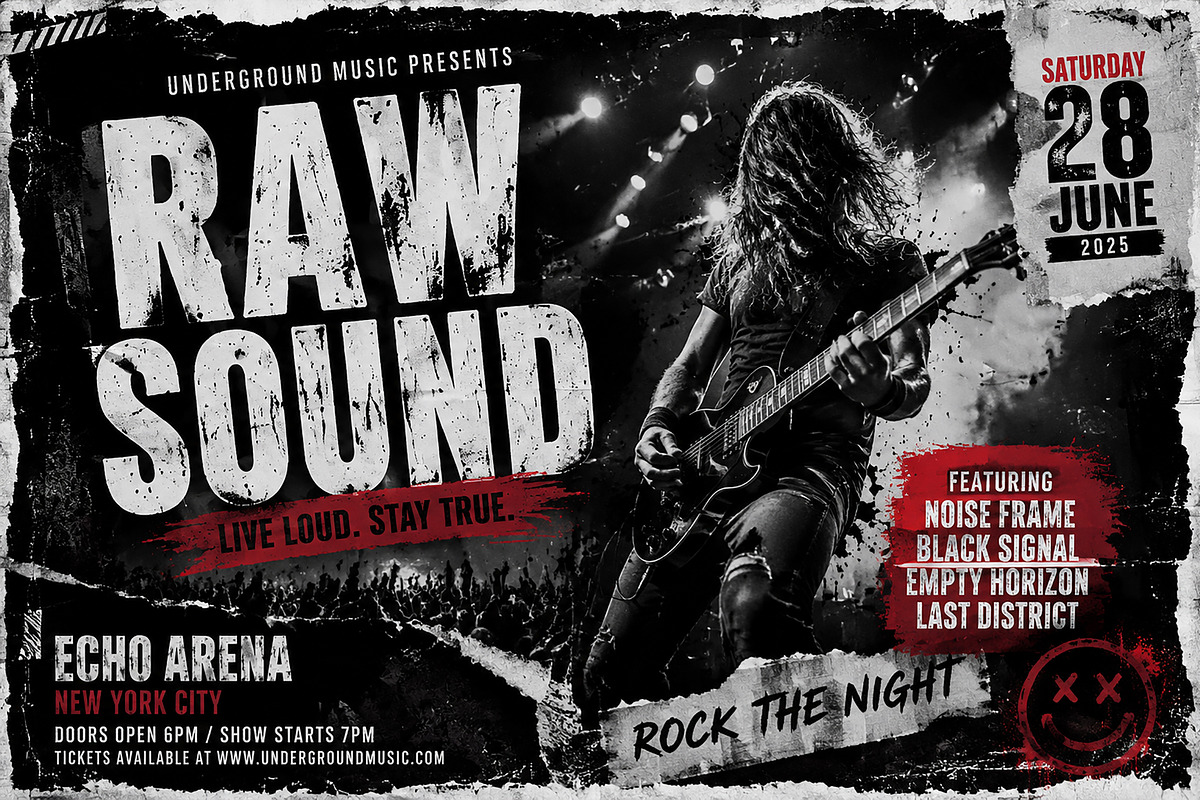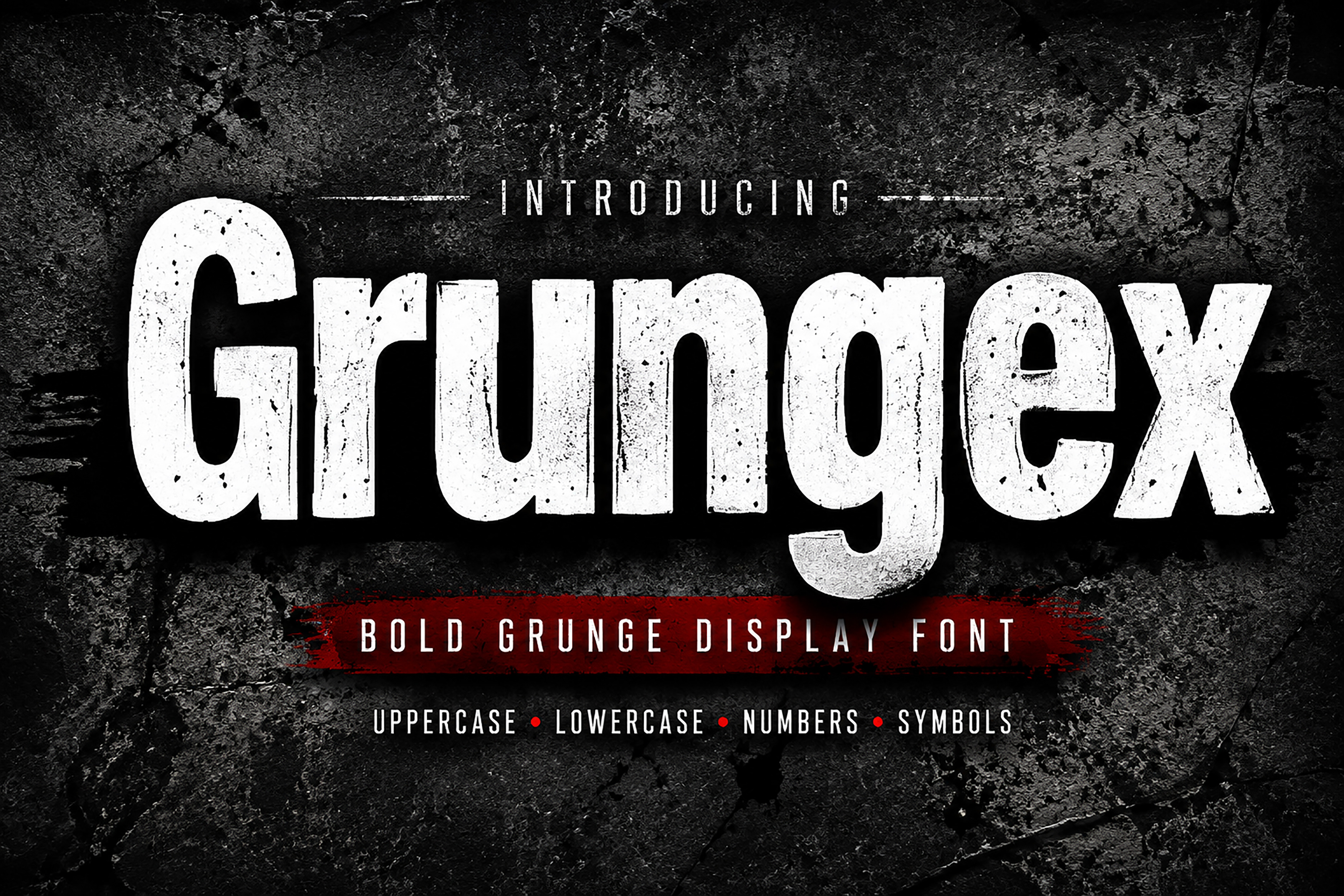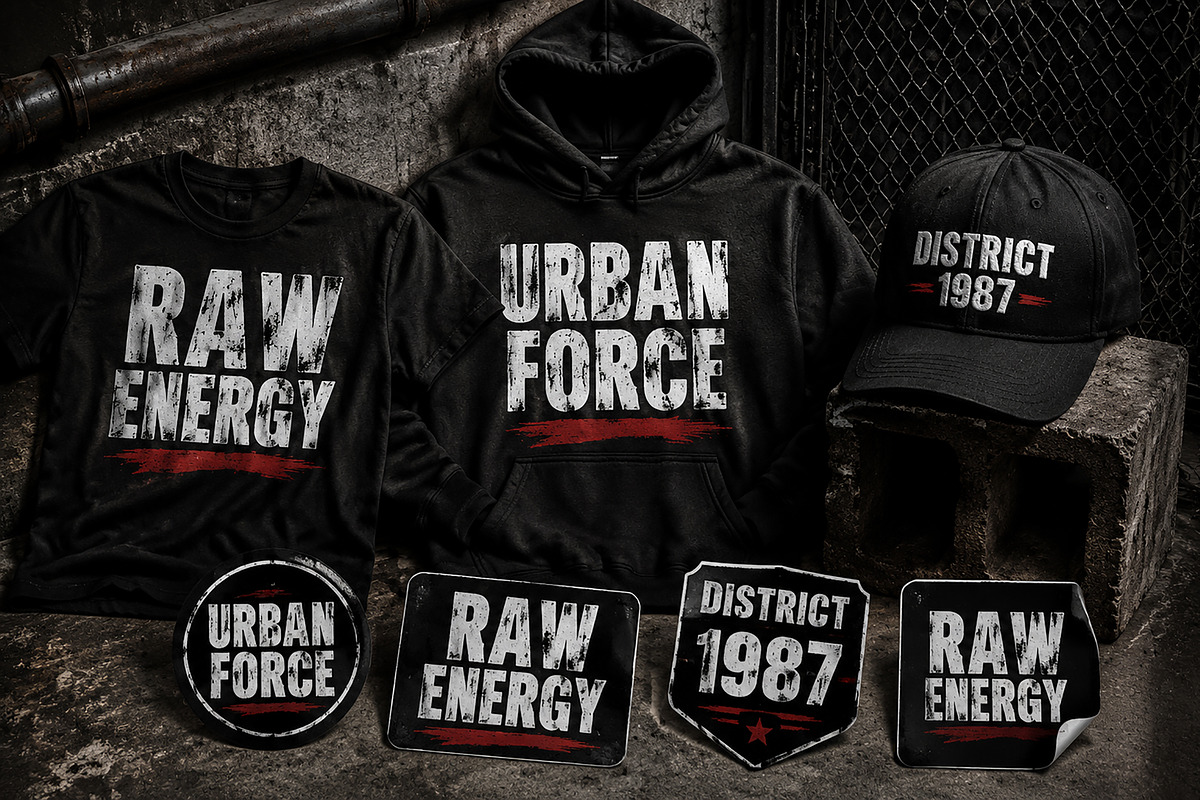
Grungex - Bold Grunge Display Font
Grungex - Bold Grunge Display Font | Distressed Urban Typeface
Description:
Grungex is a powerful bold grunge display font designed for creating impactful urban designs, posters, branding, apparel graphics, and creative projects. Featuring a rough distressed texture and strong character style, this font brings an authentic streetwear and underground aesthetic to your designs.
Perfect for logos, music artwork, sports graphics, vintage posters, merchandise, labels, packaging, and social media designs. Grungex is crafted to give your projects a bold, raw, and energetic visual identity.
Bold Grunge Display Typeface
Distressed & Rough Texture Style
Uppercase & Lowercase Letters
Numbers & Symbols Included
Perfect for Branding, Posters & Apparel Design